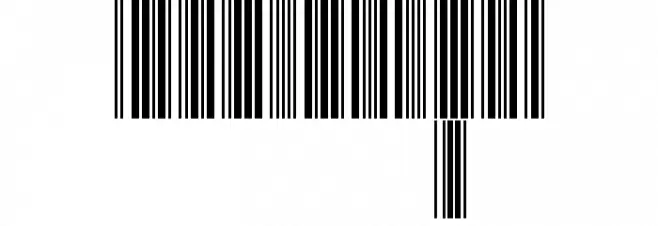
Code39Azalea Font
Code39Azalea Description
This is a barcode font designed to represent alphanumeric characters in a machine-readable format. Each character is represented by a unique pattern of bars and spaces, making it suitable for scanning and inventory management. The design is utilitarian, focusing on clarity and precision to ensure accurate scanning. The bars are evenly spaced, with a consistent height, providing a uniform appearance across all characters. This font is typically used in logistics, retail, and manufacturing industries where tracking and identification are crucial.
A barcode font for alphanumeric characters, ideal for scanning and inventory management from Uncategorized fonts.
- Proposed Projects: Ideal for product labeling, inventory tracking systems, and any project requiring machine-readable data representation.
- Use Case: Barcodes, Inventory systems, Product labeling